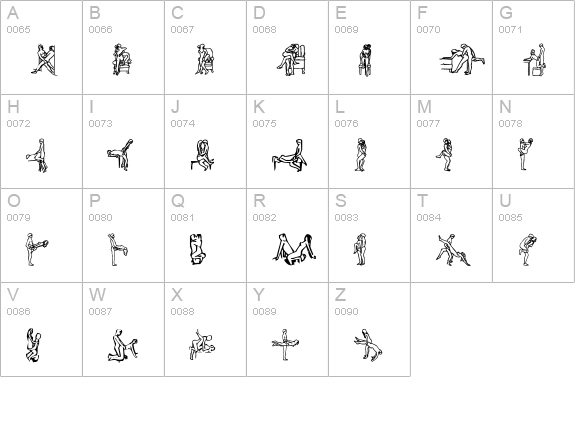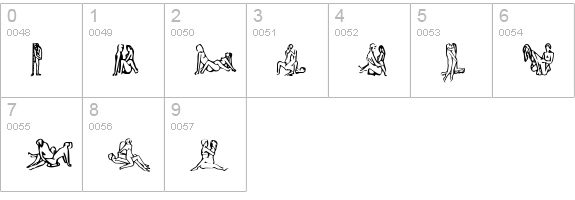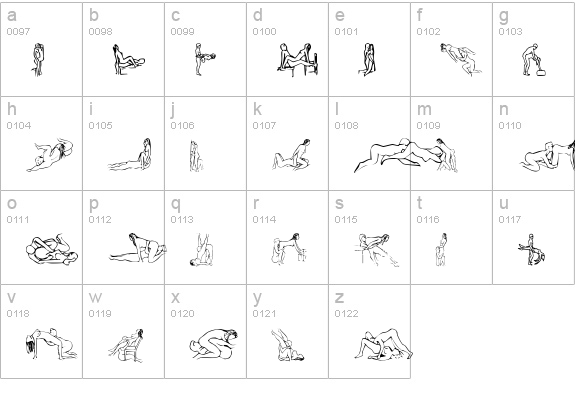
Introducing the breathtaking luvin' feelin 1 font, a true masterpiece that effortlessly captures the essence of love, joy, and passion. This font is designed to transport you to a world of pure emotion, where every letter is infused with warmth and tenderness. With its elegant and flowing strokes, luvin' feelin 1 font exudes an irresistible charm that is sure to captivate your audience. Its delicate curves and graceful lines give your words a touch of sophistication and a sense of enchantment. But what truly sets luvin' feelin 1 font apart is its ability to evoke a sense of freedom. Every letter dances freely on the page, inviting you to explore the depths of your creativity without any limitations. It empowers you to express your thoughts and emotions with ease and authenticity. And the best part? luvin' feelin 1 font is freely available to download at FontsMarket.com. That's right, you can unleash the power of this exquisite font without any restrictions. Whether you're a professional designer, a passionate blogger, or a creative enthusiast, luvin' feelin 1 font is here to inspire and elevate your projects to new heights. So, why wait? Embrace the beauty of luvin' feelin 1 font and let it infuse your designs with a touch of magic. Download it for free at FontsMarket.com and unlock a world of endless possibilities. Experience the freedom of expression and create unforgettable designs that will leave a lasting impression. Luvin' feelin 1 font – where love meets freedom.